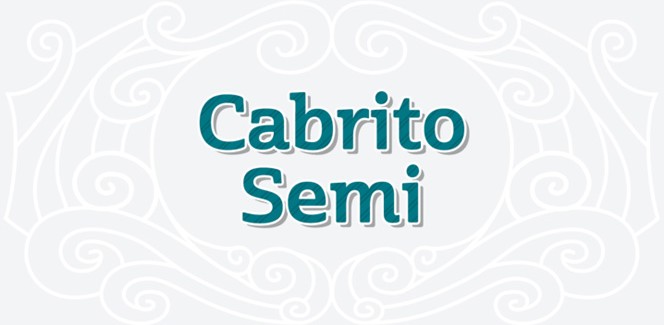
Cabrito Semi
Cabrito Semi is the latest addition to a longer line of font families designed by insigne that also includes Cabrito, Cabrito Inverto and Cabrito Sans. It originates from the beautiful playful slab serif Cabrito that was designed for a children book, The Clothes Letters Wear. As the name suggests it is a semi-serif font that, like its predecessors, offers the same relaxing and care-free feeling while at the same time retain their great functionality and extreme legibility. However, if we are to describe Cabrito Semi in one word, then it will definitely be “balanced”. This balance is the feature that this typeface adds to the superfamily and which accounts for its individuality among its three relatives. Of course, Cabrito Semi could well work on its own but the best result will come when it is combined with the other members of the family. Like that it will be your perfect choice for longer text like in books, websites but also in flyers, brochures, signage, packaging, etc.
Cabrito Semi offers the stunning 48 fonts with glyphs for 72 languages. The Italics deserve a special mention as they will add a touch of elegance everywhere you use them. OpenType features include a bounty of alternates, alternate titling caps, swashes, swash alternates, compact caps and old style figures.